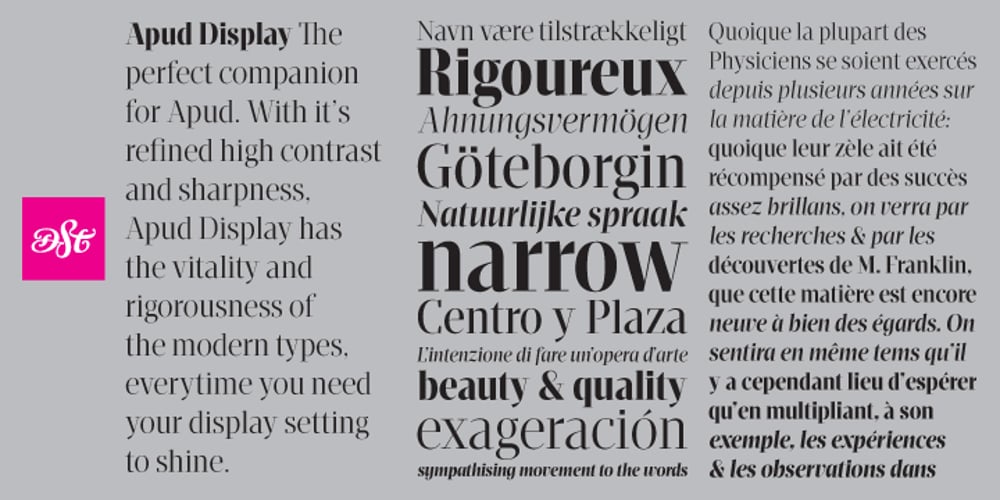
Apud Display
Apud Display font
Apud Display Font Family was designed by Dino dos Santos and published by Monotype. Apud Display contains 8 styles and family package options. Apud Display is the perfect companion for Apud. With its refined high contrast and sharpness, Apud Display has the vitality and rigor of modern typefaces, every time you need your display setting to shine.